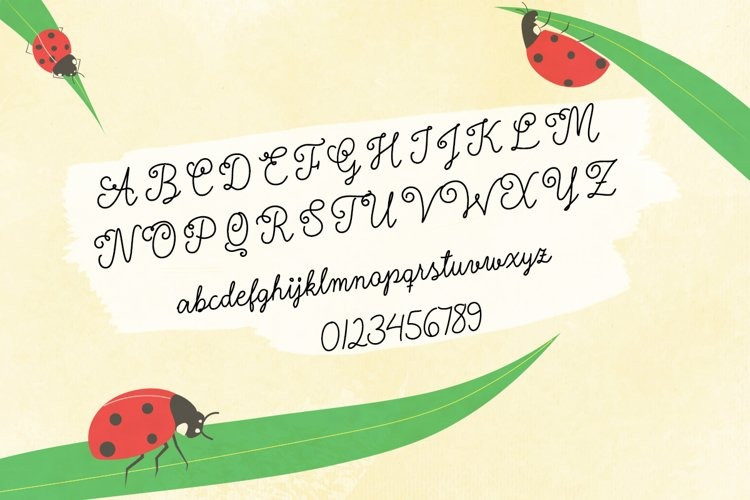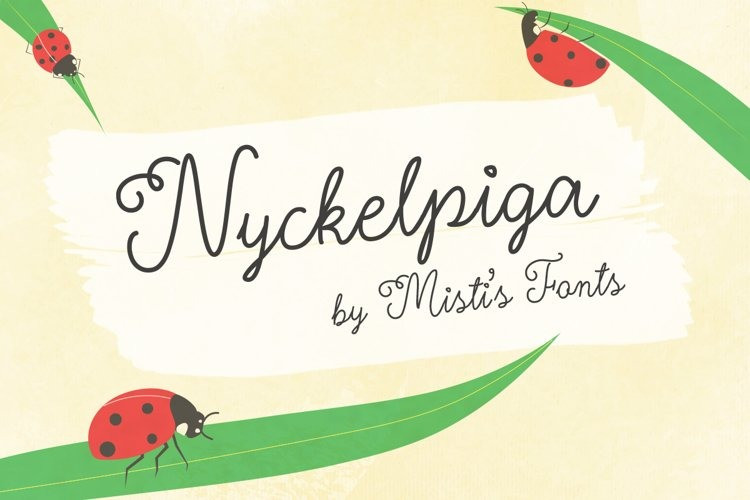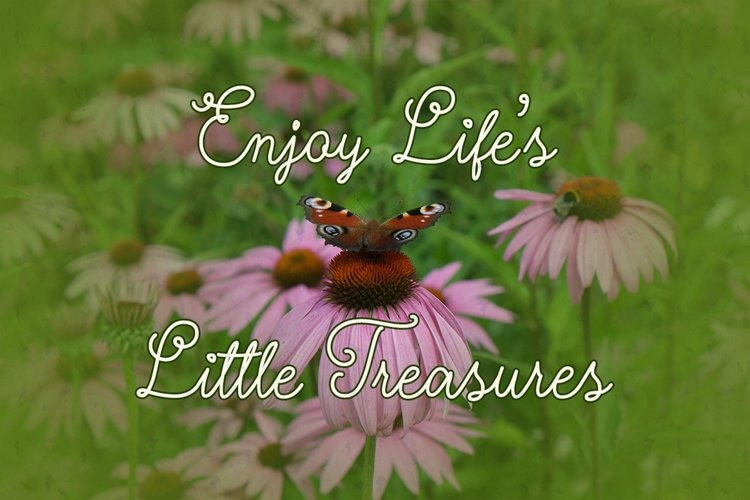
Nyckelpiga Handwritten Font
Nyckelpiga is a charming handwritten typeface. It was carefully crafted with elegant, flowing letterforms that will add style and class to any project. Each letter was individually drawn, giving it a natural handwritten feel, while remaining clean and legible. It is perfect for a variety of usages, such as logos, invitations, product labels, websites and so much more!